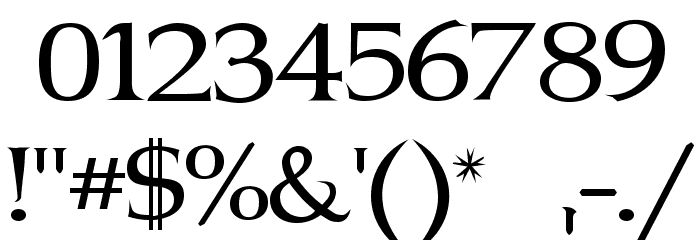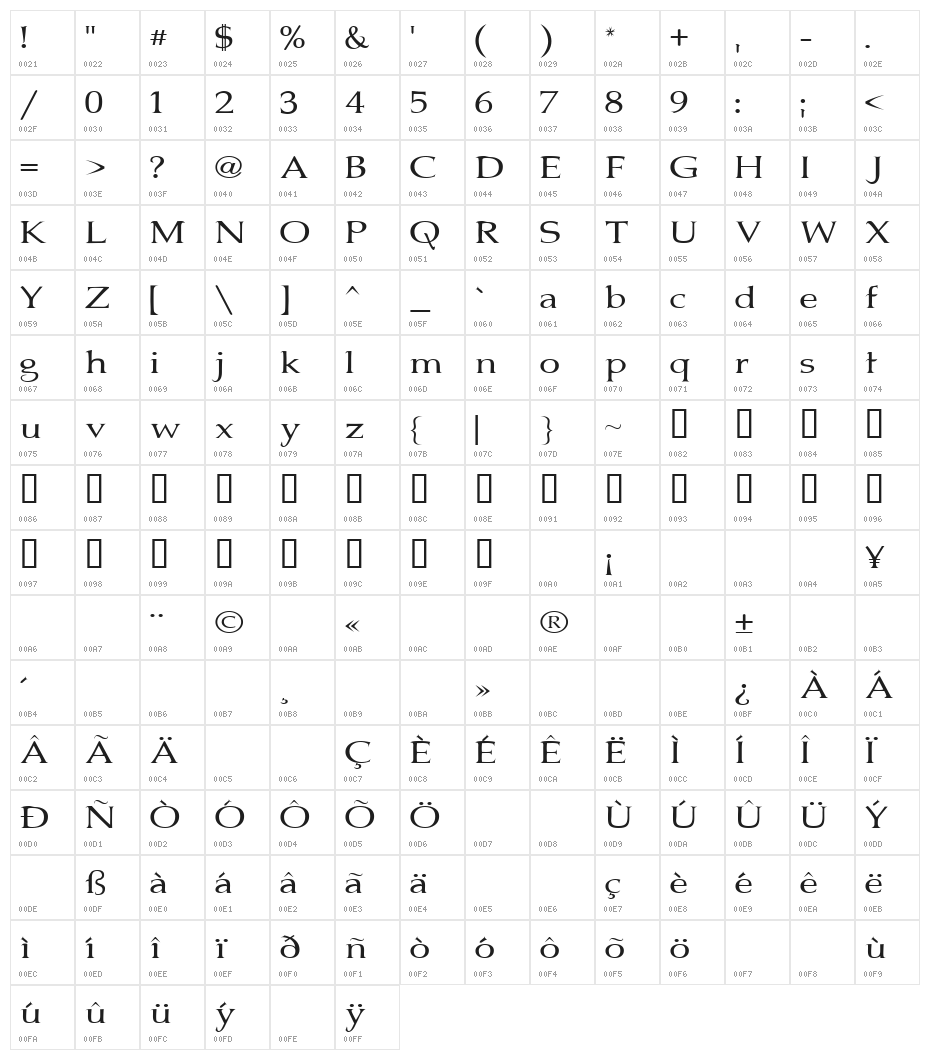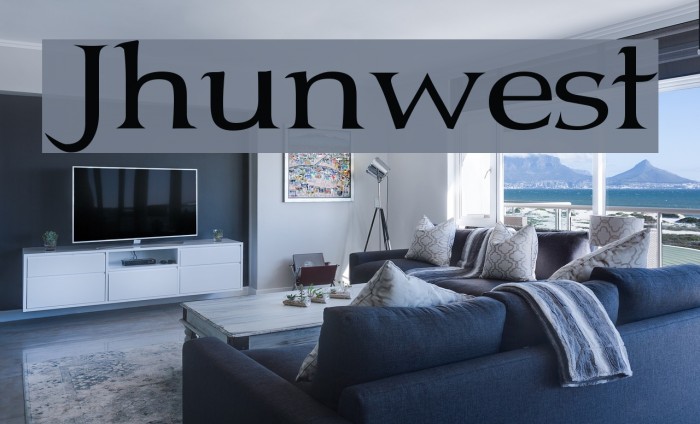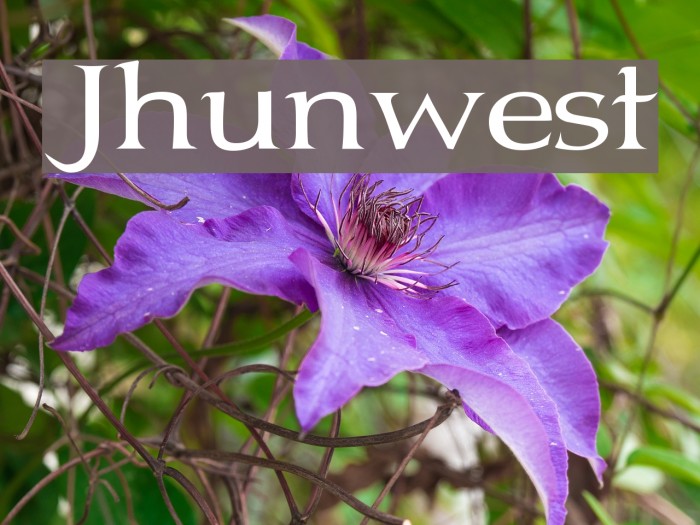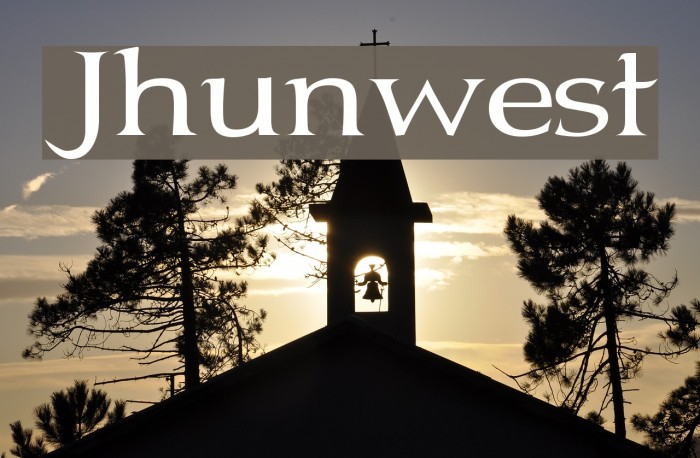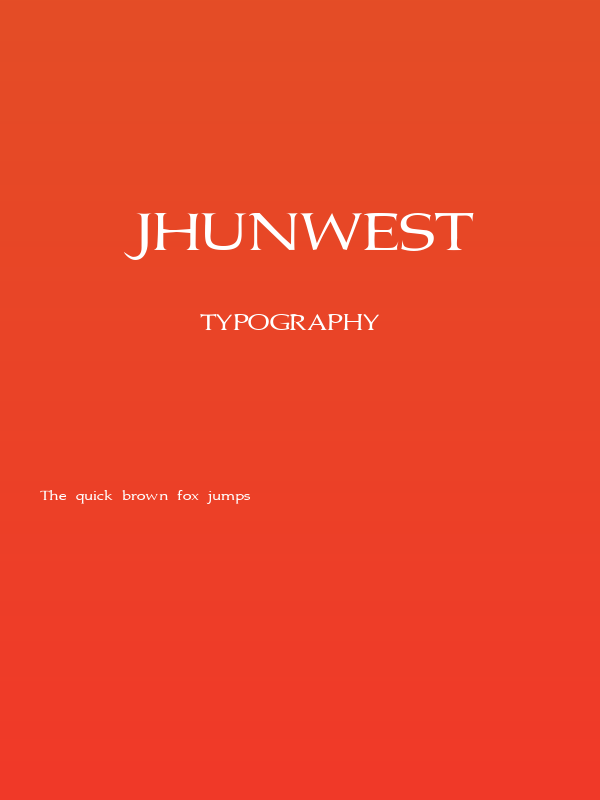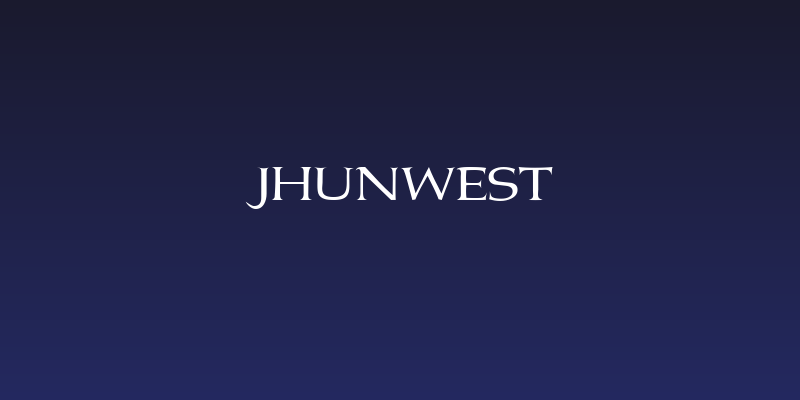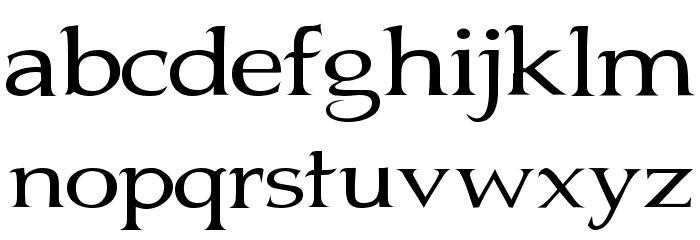
Jhunwest Font
Jhunwest Description
This font features a classic serif style with elegant, flowing lines and a sophisticated appearance. The uppercase letters exhibit a strong presence with slightly flared serifs, while the lowercase letters maintain a balanced and harmonious look. The numerals are clear and distinct, complementing the overall design. Special characters are crafted with attention to detail, enhancing the font's versatility. The font's high contrast between thick and thin strokes adds to its refined aesthetic, making it suitable for formal and elegant applications.
| Proposed Projects | Ideal for use in formal invitations, luxury branding, editorial design, and high-end product packaging. |